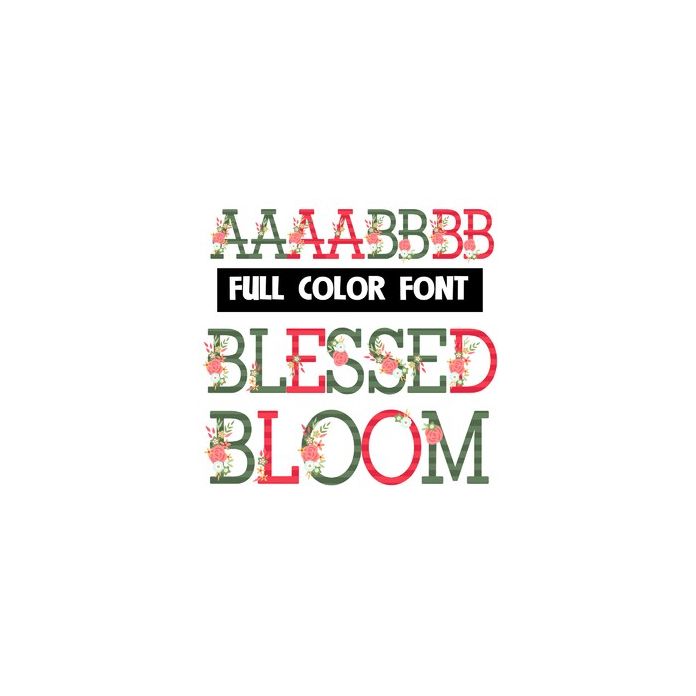
This full-color font features green striped lettering with Christmas florals. There is an alt case with red lettering that you can access through your system or Silhouette's glyph map.